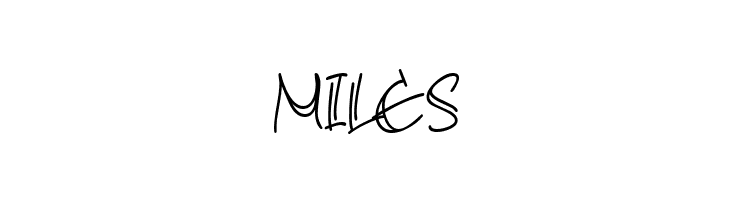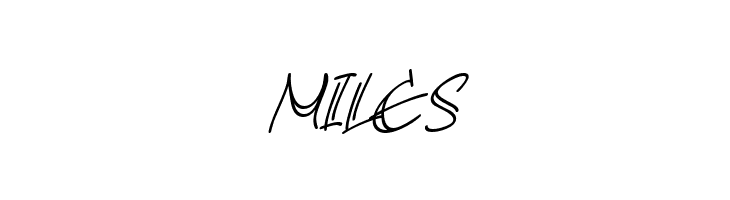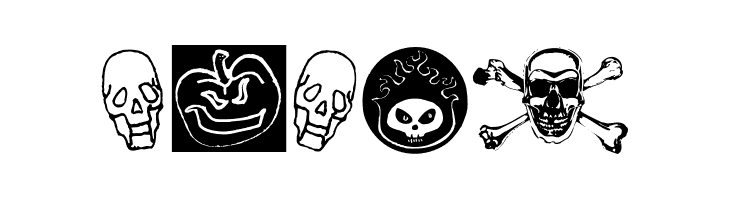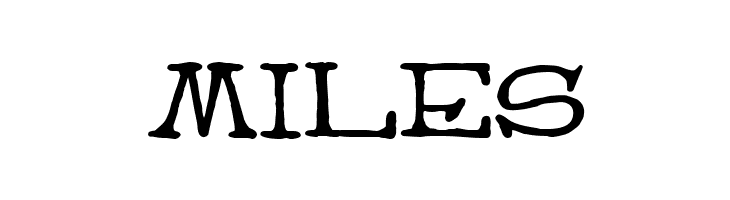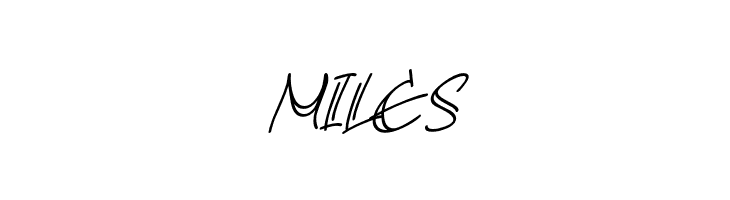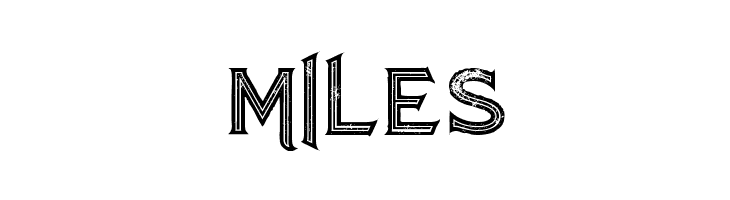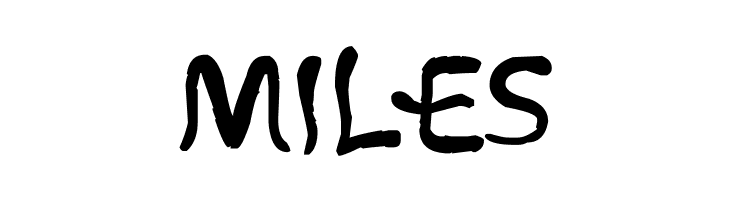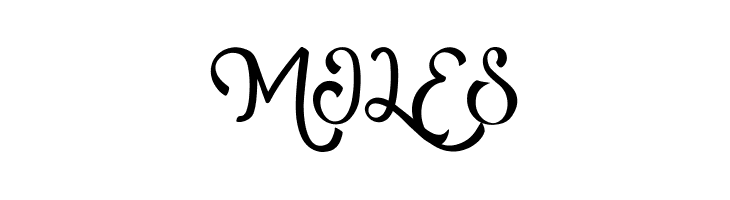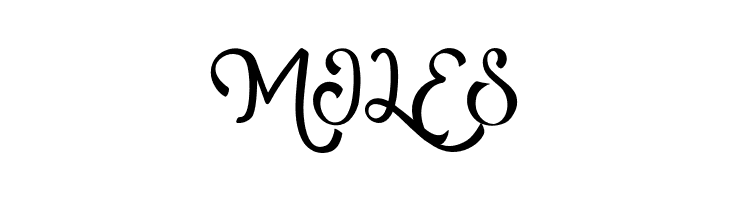
A modern, geometric sans-serif font with balanced proportions and medium weight.
A clean, modern sans-serif font with a semi-bold weight and medium contrast.
A playful, sports-themed illustrative font with each character represented by an athlete in action.
A bold, dynamic script font with flowing, cursive letterforms.
A bold, athletic-style font with shadow effects and dotted detailing.
A bold, high-contrast serif font with sharp serifs and a dramatic style.
Hand-drawn decorative font made of household object illustrations.
A futuristic, geometric font with bold, angular letterforms and unique cutouts.
A playful, sketch-like handwritten font with dynamic strokes and a casual feel.
A dynamic, cursive script font with an italicized, handwritten style.
A playful, hand-drawn font with a sketch-like, artistic style.
A dynamic, italicized handwritten font with a sketch-like appearance.
A bold, textured cursive font with a vintage, handcrafted feel.
A dynamic and flowing script font with elegant, slanted letterforms.
A graceful script font with fluid, cursive strokes and elegant curves.
A bold, flowing script font with elegant, cursive letterforms and a slight slant.
A bold, distressed font with a rugged, vintage texture.
A whimsical and flowing script font with elegant curves and loops.
A bold, distressed inline font with a grunge aesthetic.
A bold, grunge-inspired inline font with a vintage yet modern aesthetic.
A dynamic, brush-style font with expressive strokes and fluid motion.
A whimsical and elegant script font with flowing loops and swirls.
A playful, hand-drawn font with bold, rounded characters.
A bold, geometric Art Deco font with sharp angles and clean lines.
A bold, geometric font with intricate line patterns and a modern style.
A whimsical, hand-drawn font with a magical, ancient script vibe.
A bold, illustrative display font with skull and t-shirt themed icons.
An elegant cursive font with flowing, ornate characters.
A bold, futuristic font with sharp angles and a geometric design.
A bold, futuristic font with geometric shapes and sharp angles.